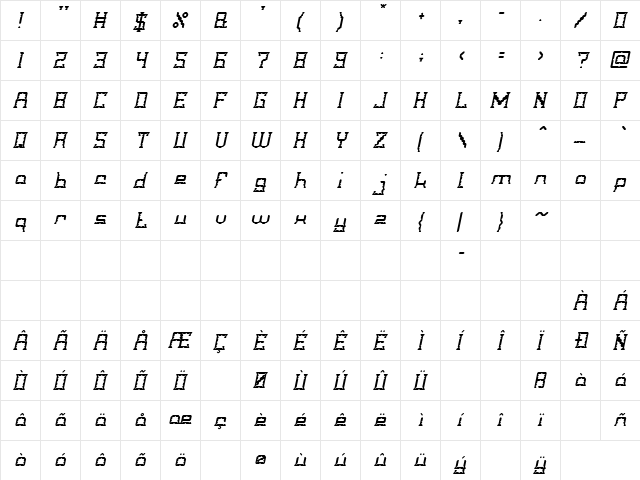
Crystal Soldier Italic
Design Context for Crystal Soldier Typeface
Crystal Soldier has the no-nonsense character of military stencilling and tactical signage, projecting authority and directness. Its italic angle brings a sense of urgency and motion to the letterforms.
Designed for tactical branding, military-inspired apparel, action game UI, and utility-focused signage.
Pro Tip: Use Crystal Soldier at medium-to-large sizes where its utilitarian structure can be appreciated — the character detail gets lost at small sizes.